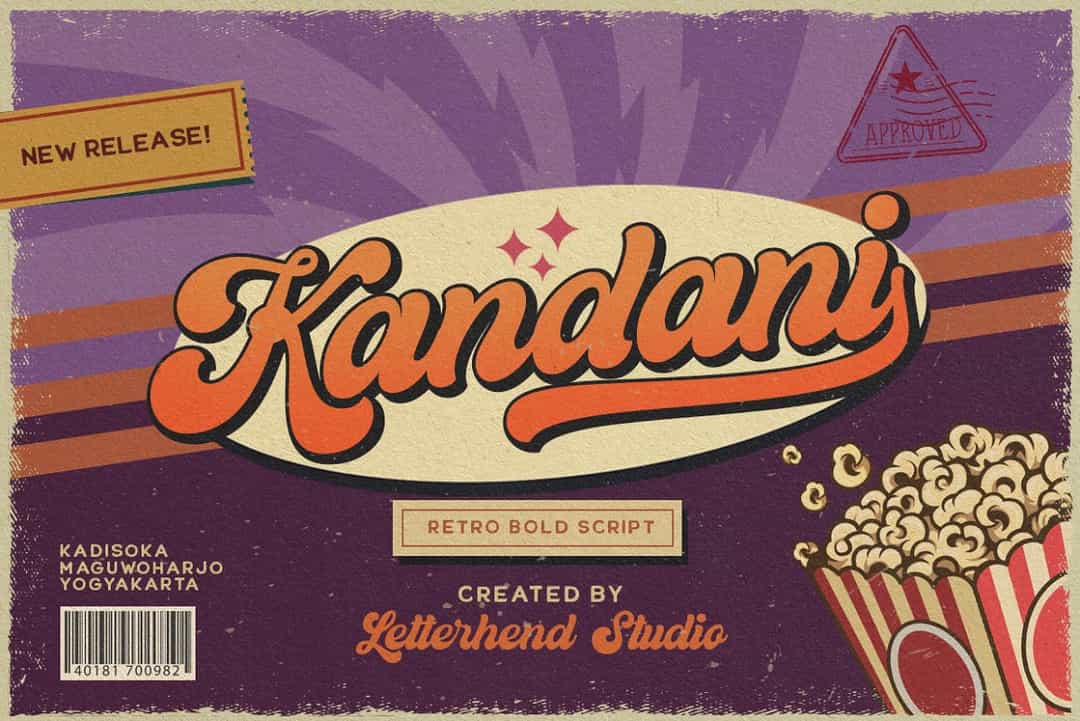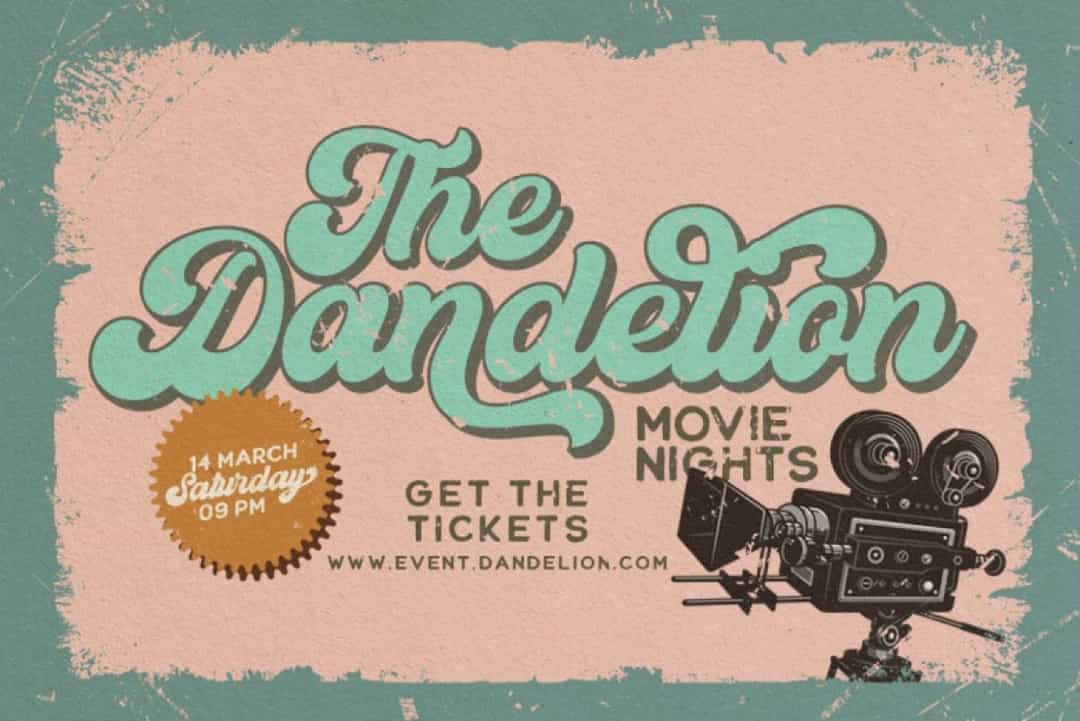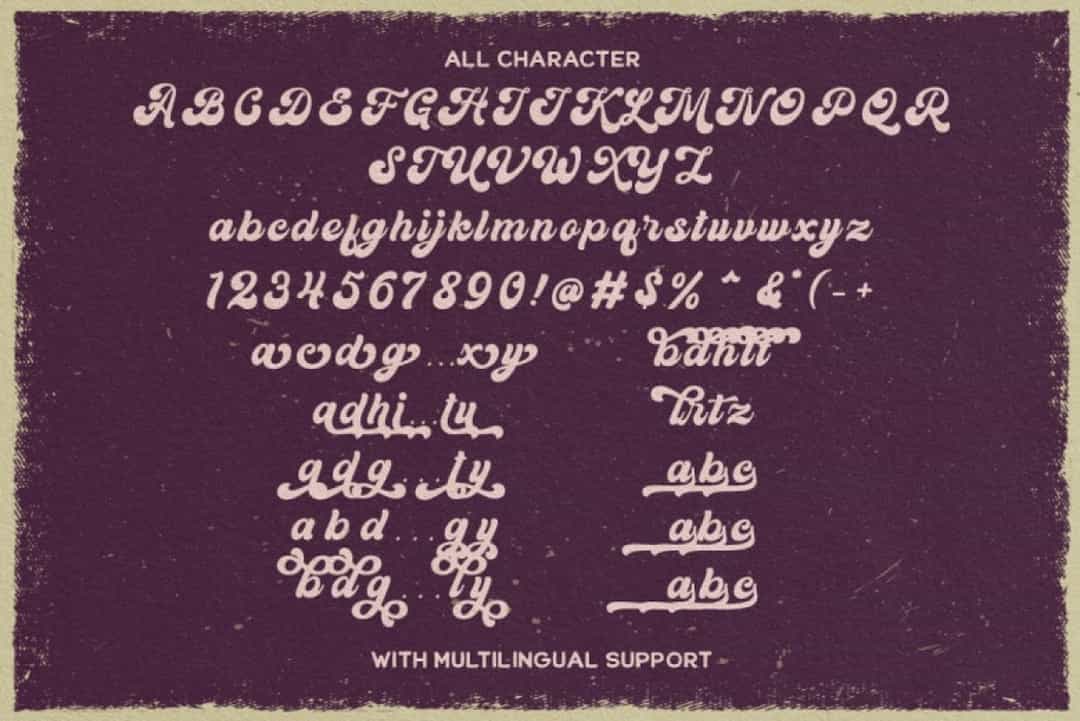
Kandani is a bold and retro style font from the 1960s that can transport you back in time. This typeface comes equipped with an extrude font to easily create retro-style fonts for use in logos or formal designs like invitations labels invitations magazines logos books greeting wedding cards packaging fashion stationary novels labels or any form of advertising purposes.